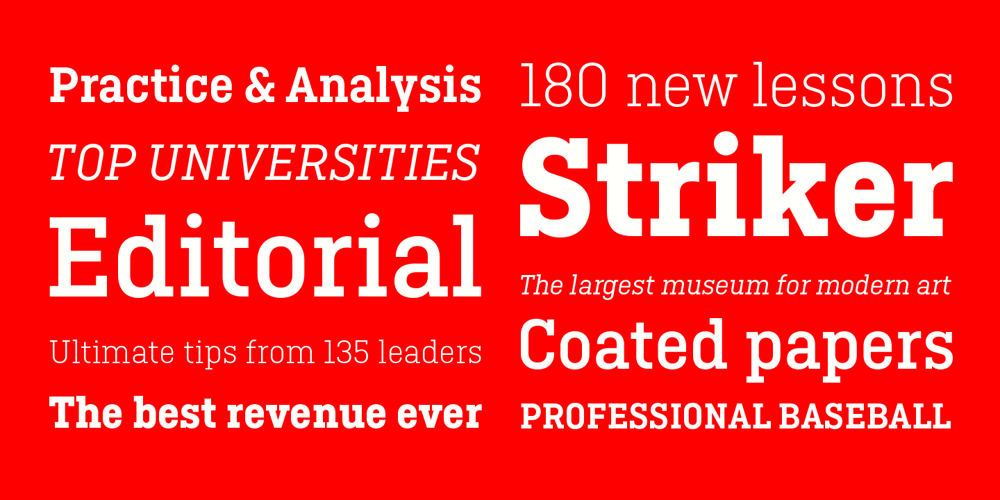
Ciutadella Slab Font Family was designed by Eduardo Manso and published by Emtype Foundry. Ciutadella Slab contains 11 styles and family package options. The family keeps growing, Ciutadella Slab is the ‘serif’ counterpart of the popular Ciutadella font. The former alternate characters like ‘a’, ‘t’ and ‘&’ are now the default ones (and the former default characters are now the alternates), giving way for a typeface more suitable for texts. Thus, the new Ciutadella Slab is not only a great headline family, it will also work in texts of intermediate length and size. Especially appropriate for magazines, brochures or branding. This new addition provides even more versatility to the family started with Ciutadella and Ciutadella Rounded. It is available in Open Type format and includes Alternate Characters, Ligatures, Tabular Figures, Fractions, Numerators, Denominators, Superiors and Inferiors. It supports Central and Eastern European languages. As the sans version, the type family consists of 10 styles, 5 weights (Light, Regular, Medium, SemiBold and Bold) plus italics. For more details see the PDF.